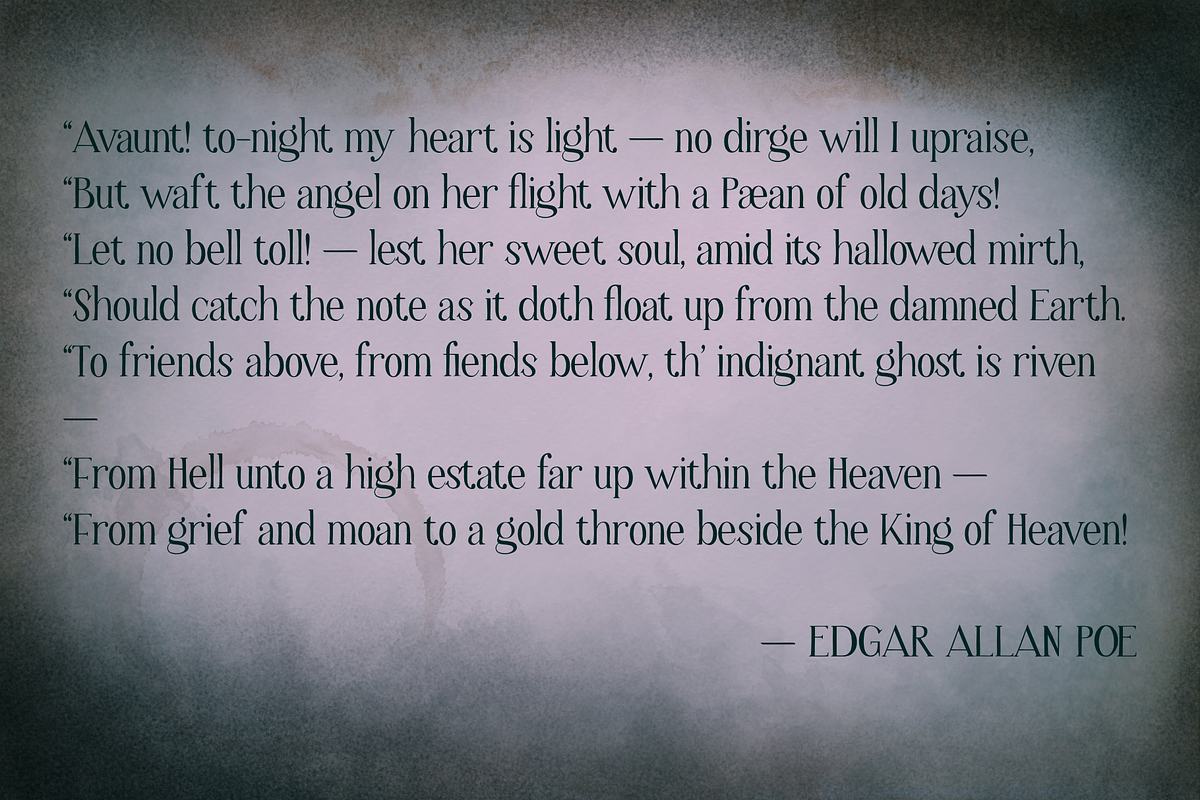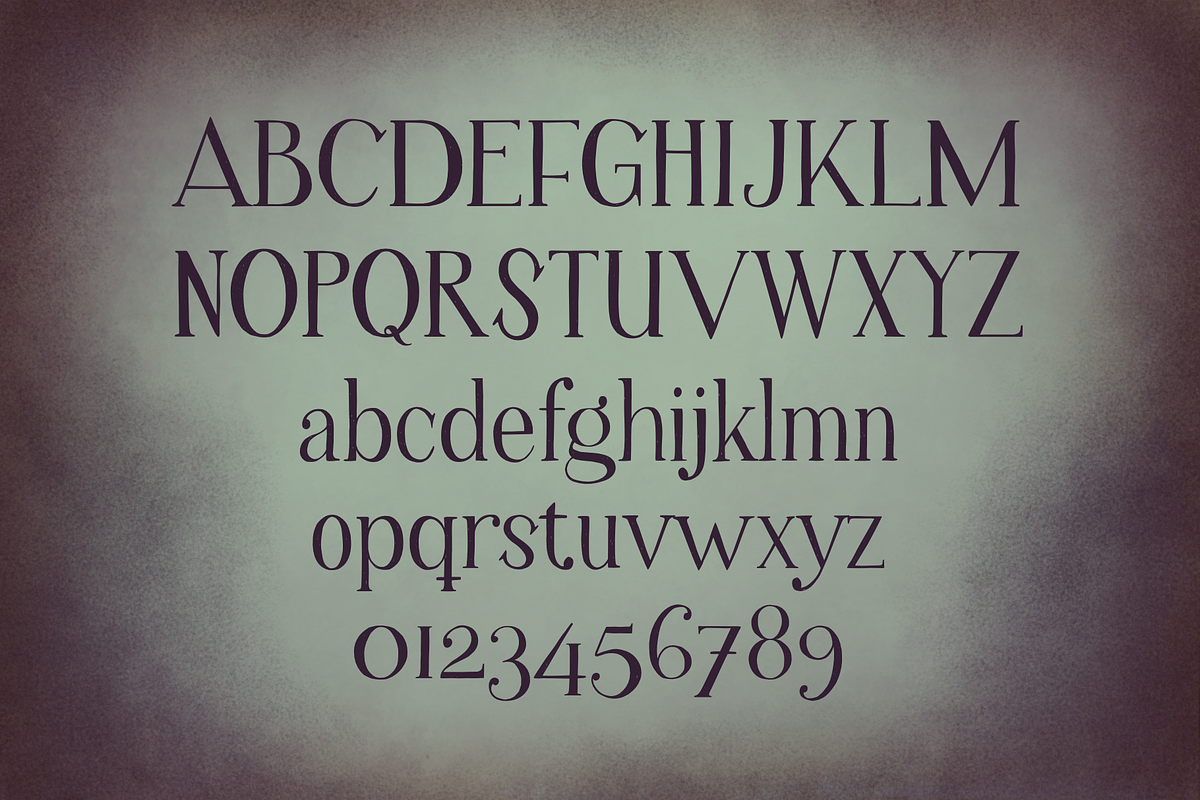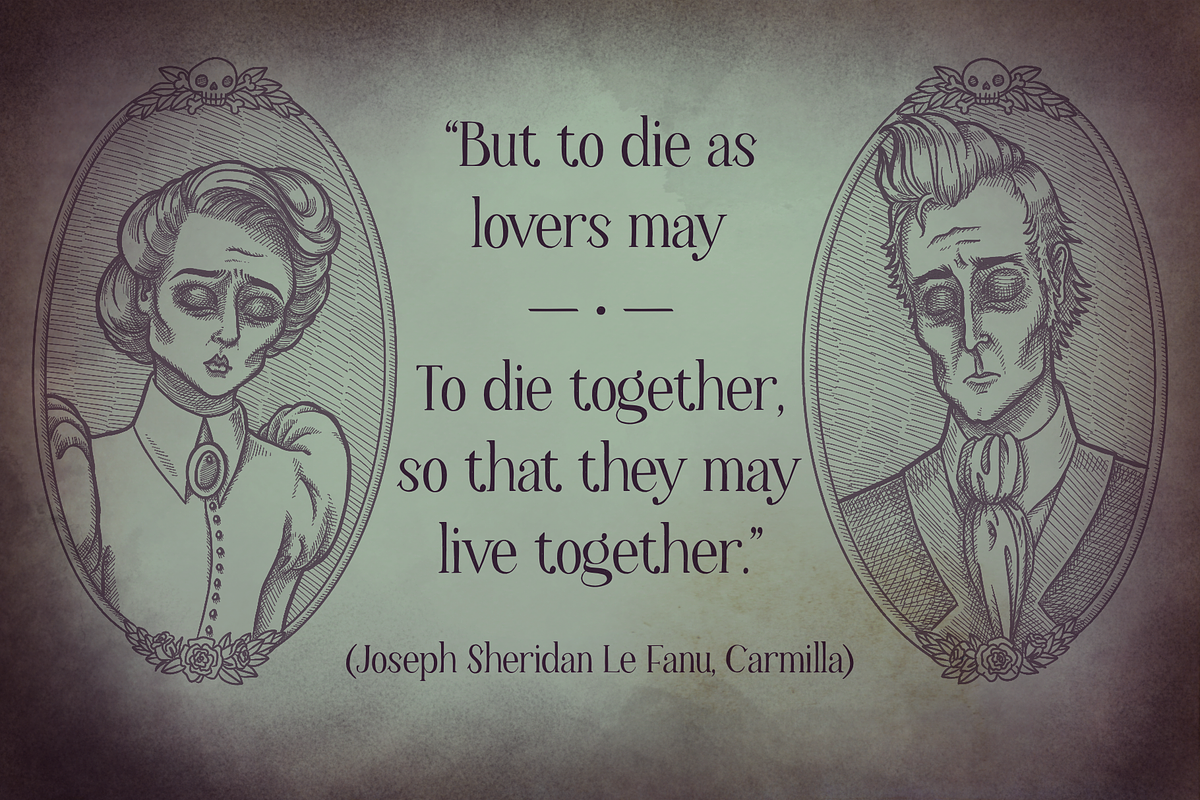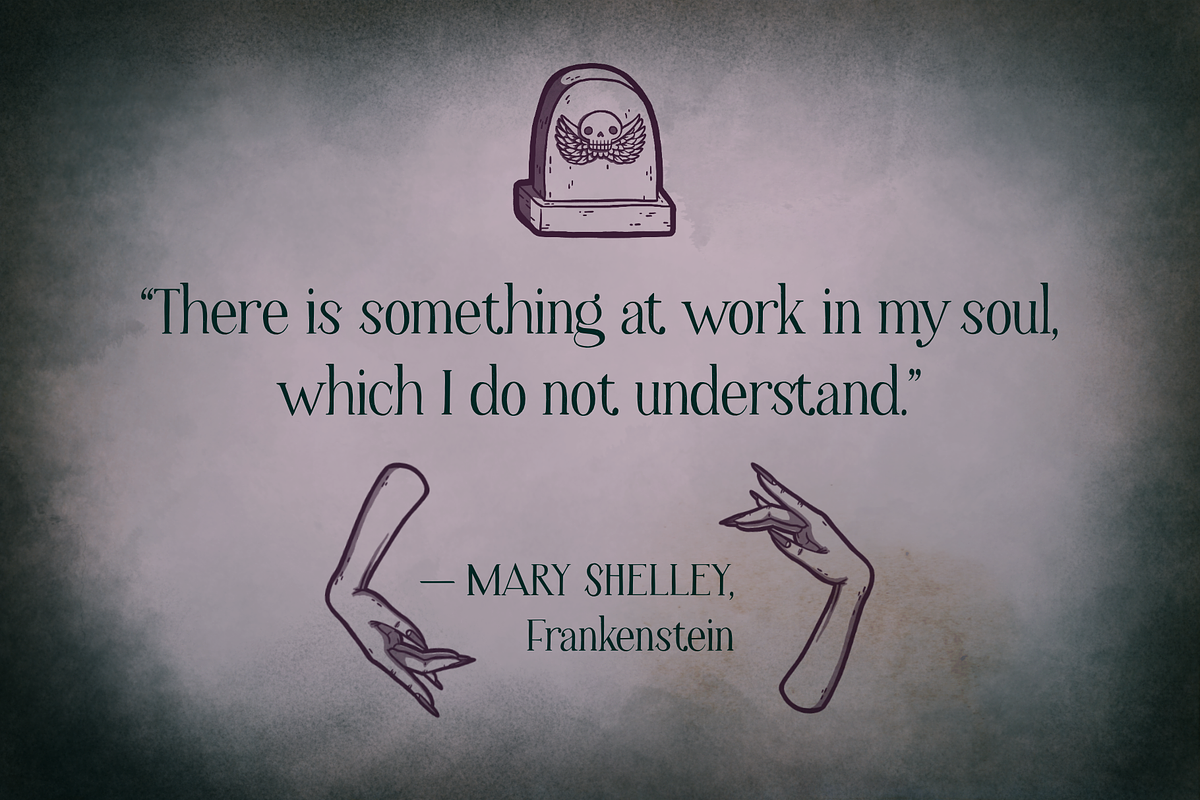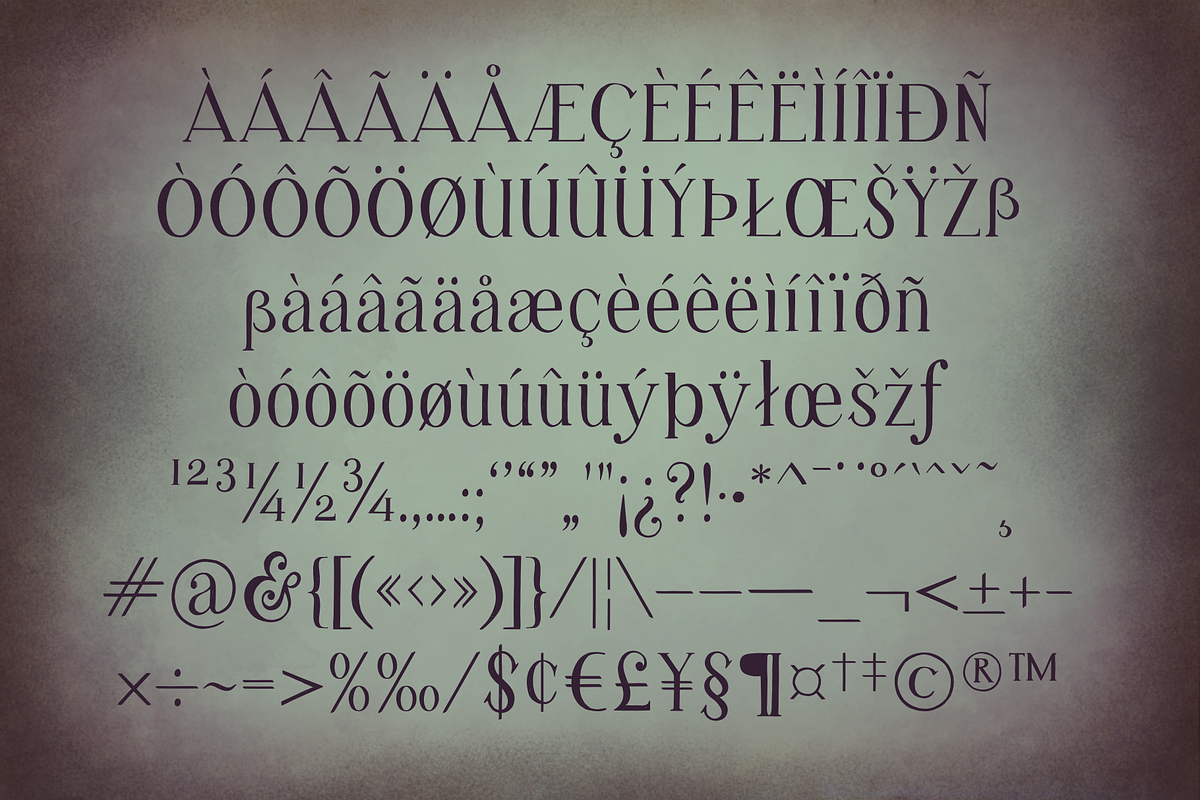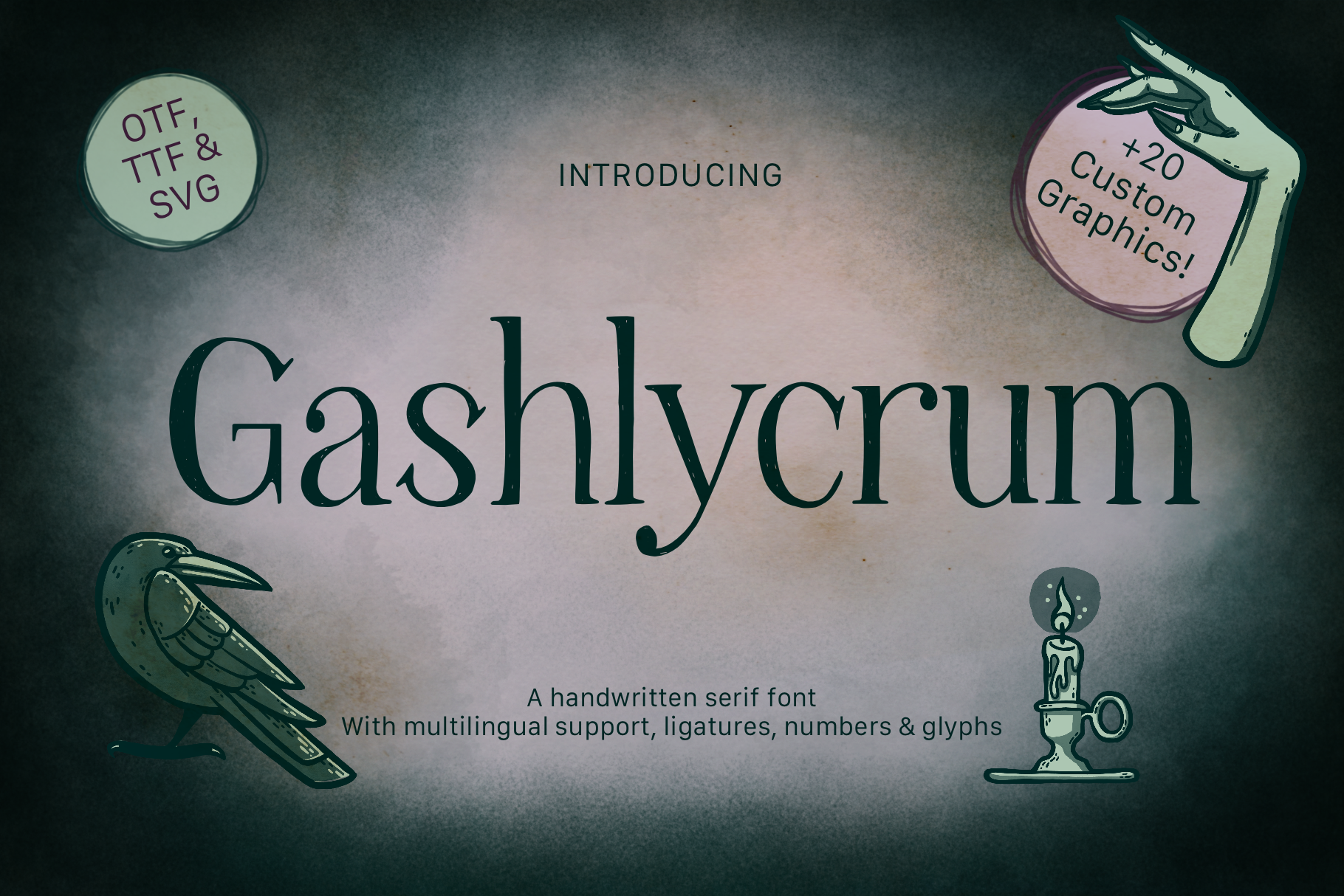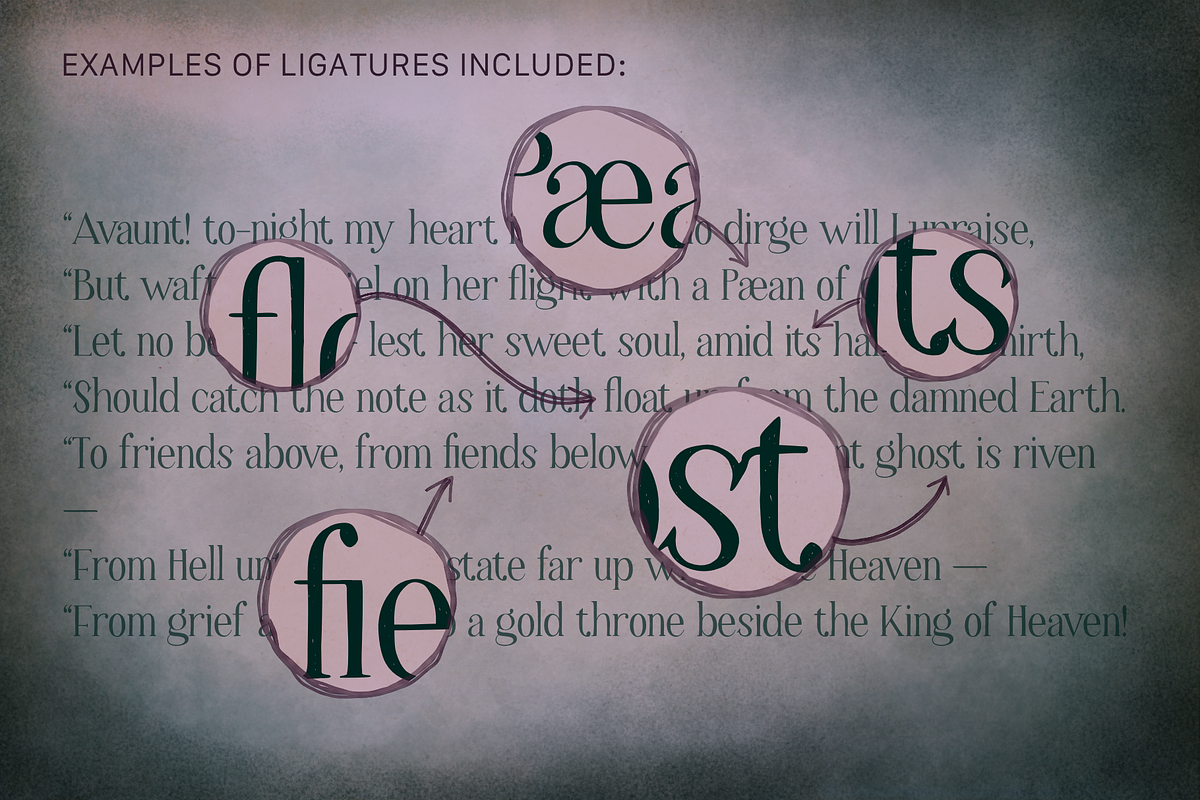
Gashlycrum Font
Inspired by goth heroes like Edward Gorey, Mary Shelley, Tim Burton and Edgar Allan Poe, Gashlycrum is a hand-drawn textured serif typeface which comes with ligatures, a plethora of glyphs, symbols and multilingual support.
As an added bonus you will receive a set of 20+ ghastly hand-drawn graphic elements in three different colour versions, a perfect pairing with the Gashlycrum font to help you realize your darkest fantasies.
A total of 244 glyphs including numerals, punctuation, ligatures & multilingual support
Multilingual characters which support these languages: Standard Latin, Danish, English, Finnish, French, German, Icelandic, Italian, Norwegian, Portuguese, Spanish, Swedish & more